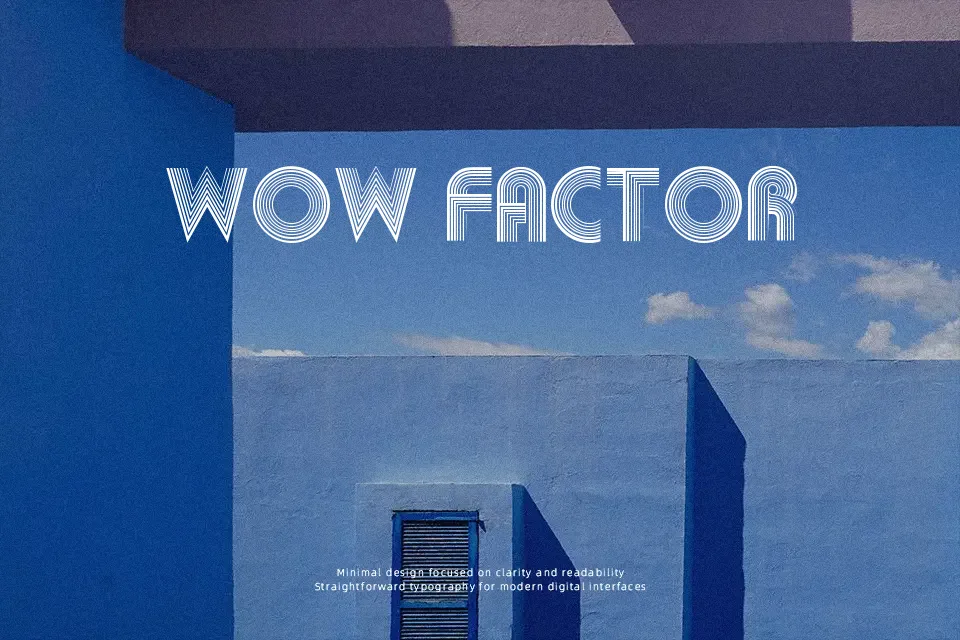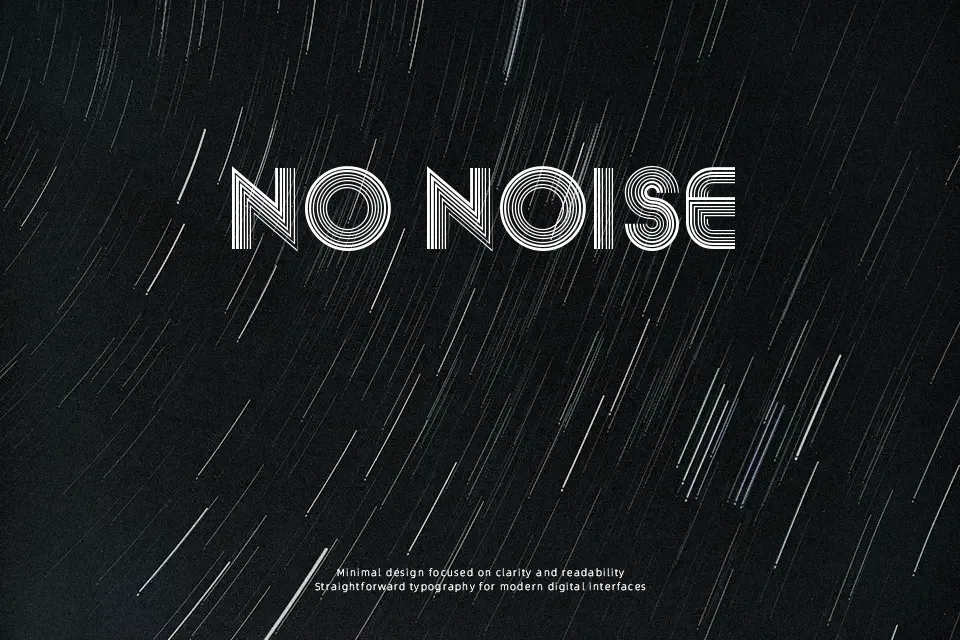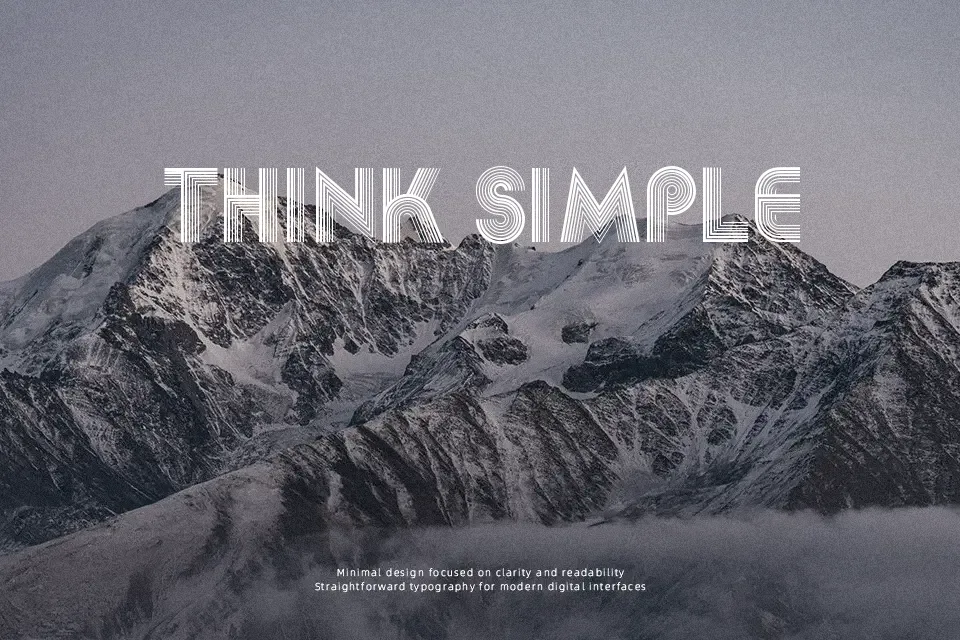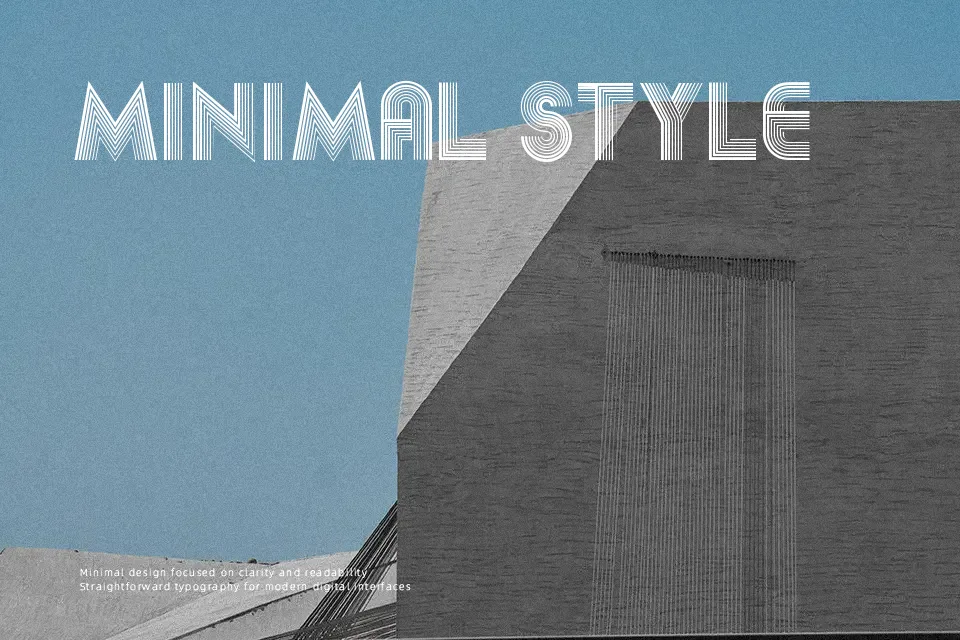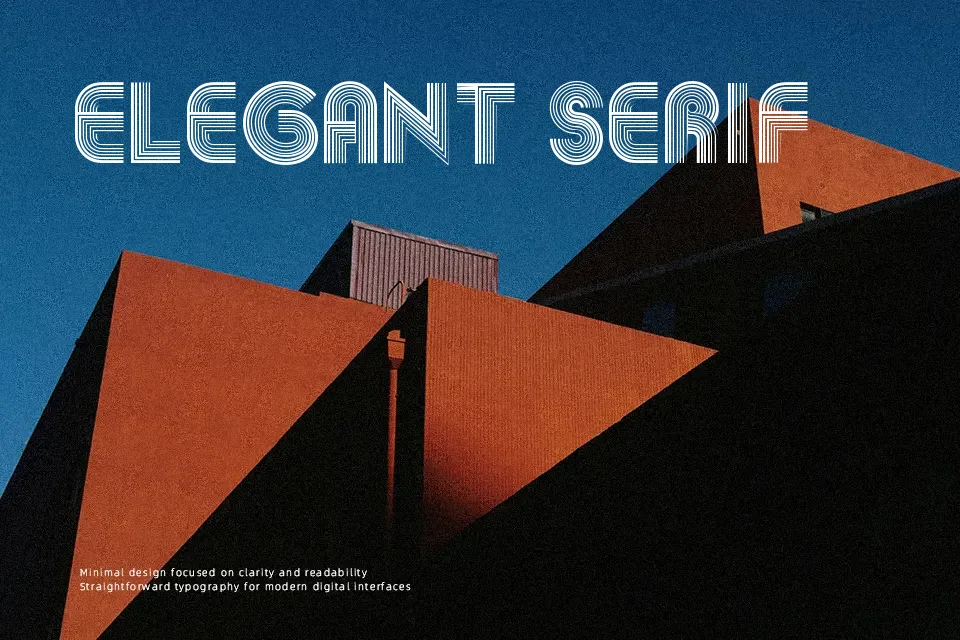
Akka Font
Akka commands attention through its unusual construction — each letterform is made of dense, repeating parallel strokes that stack and curve together, giving the whole face a hypnotic, almost optical-illusion quality. The weight is consistently heavy, with no contrast between thick and thin strokes, producing a flat but textured appearance that reads as both decorative and architectural. It works best blown up large, where the line repetition can fully register — think festival headliners, vinyl covers, or a fashion editorial opener. Pair it with a clean, minimal sans serif for body text; Akka has no business carrying long-form copy. The lack of kerning data and its symbolic encoding also limits multilingual flexibility, so expect basic Latin support only.
Best For:- Music festival and concert poster headlines
– Retro album cover lettering
– Bold fashion or editorial section headers
– Eye-catching social media graphics with minimal text
Not Ideal For:- Body text or any long-form reading context
– Corporate or professional business documents
– Multilingual or accented character-heavy projects
– Small sizes where line detail collapses
Perfect for branding, editorial, and music, with a bold and decorative style.